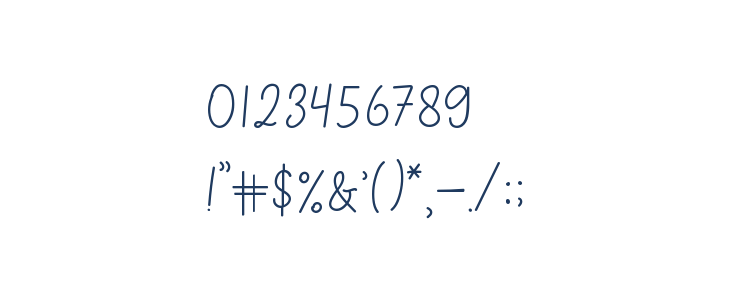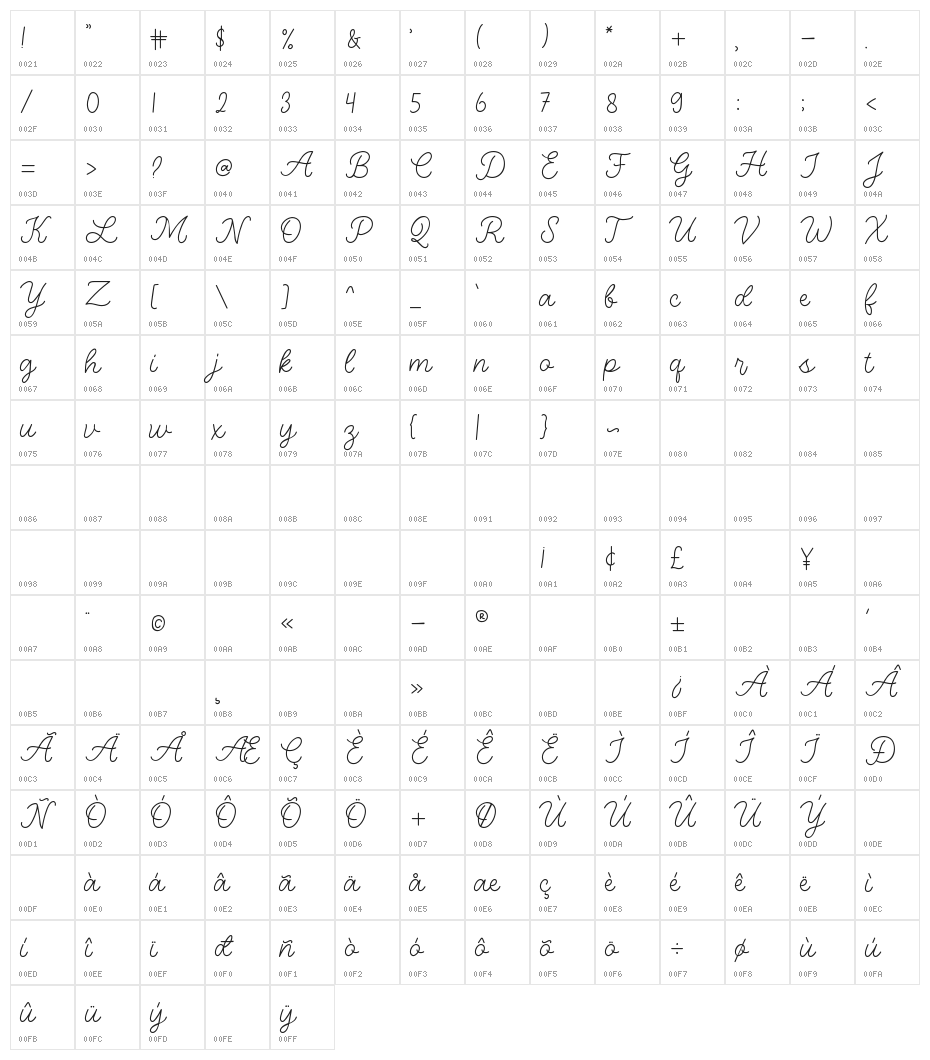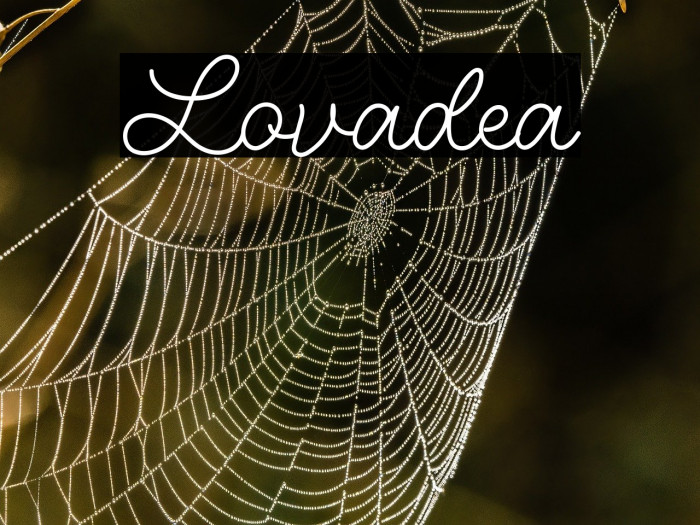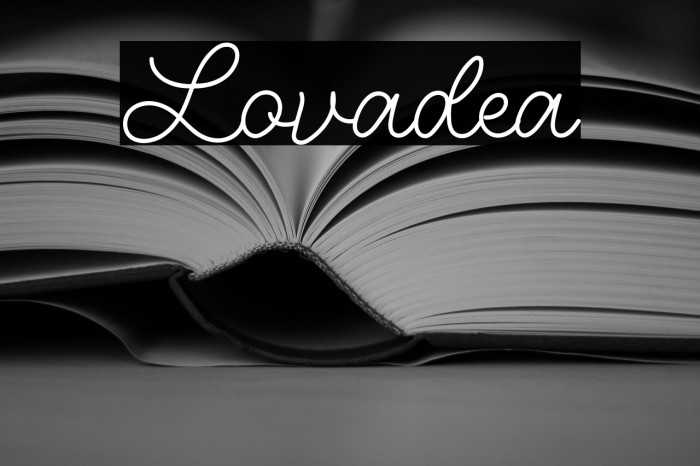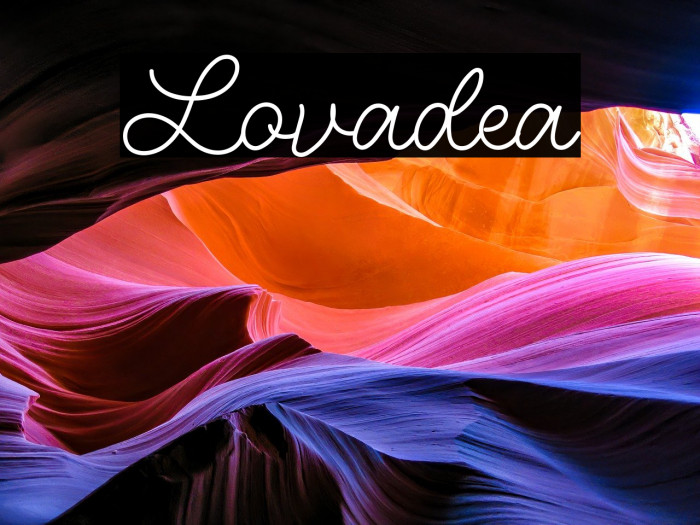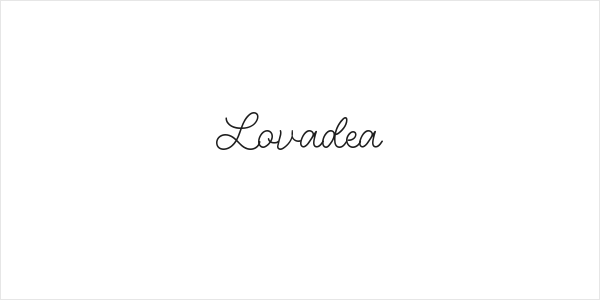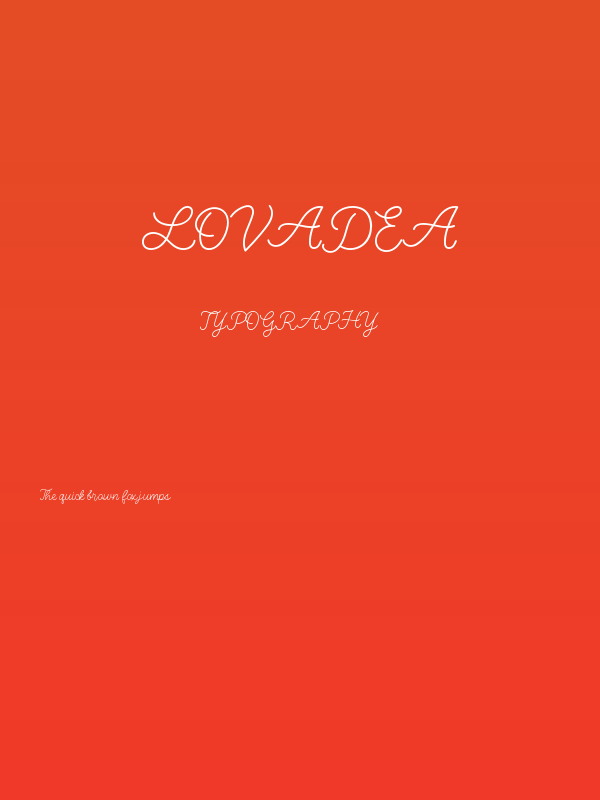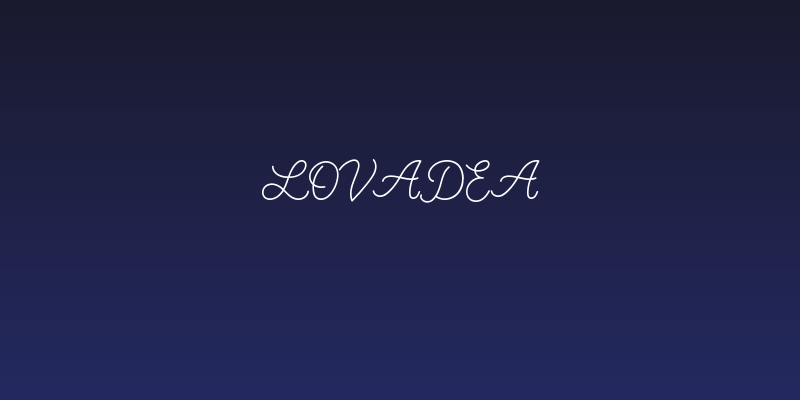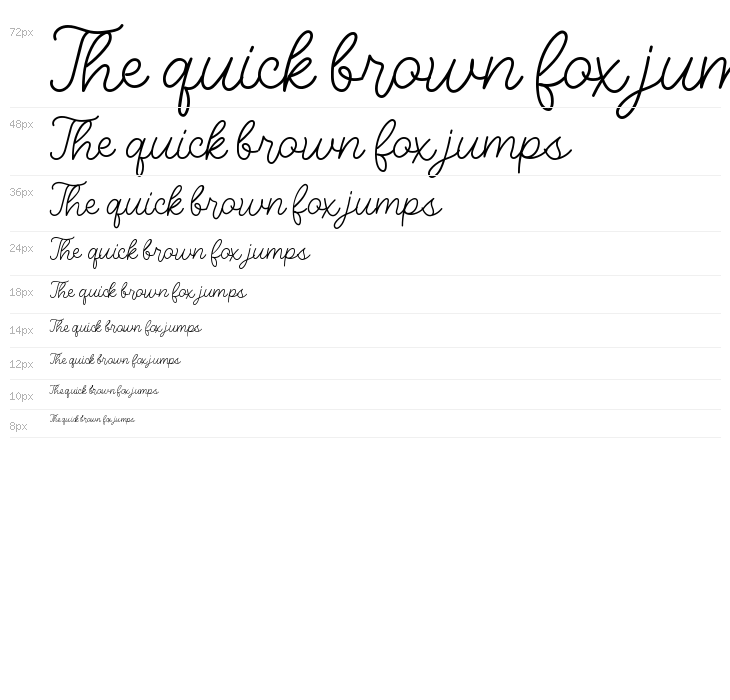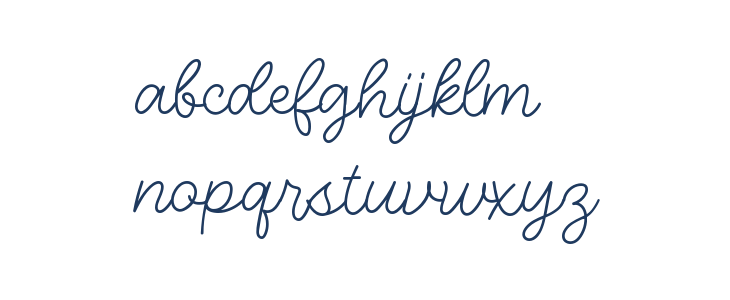
Lovadea Font
Lovadea Description
This elegant script font features a flowing, cursive style with smooth, connected strokes that create a sense of fluidity and grace. The uppercase letters are slightly more elaborate, with gentle curves and loops that add a touch of sophistication. The lowercase letters maintain a consistent style, with rounded forms and a slight slant that enhances readability. The numerals are clear and legible, matching the overall aesthetic of the font. Special characters are thoughtfully designed to complement the script, ensuring a cohesive look across all text elements. This font exudes a sense of elegance and charm, making it suitable for a variety of creative projects.
| Proposed Projects | Ideal for wedding invitations, greeting cards, logos, and branding materials that require a touch of elegance. |